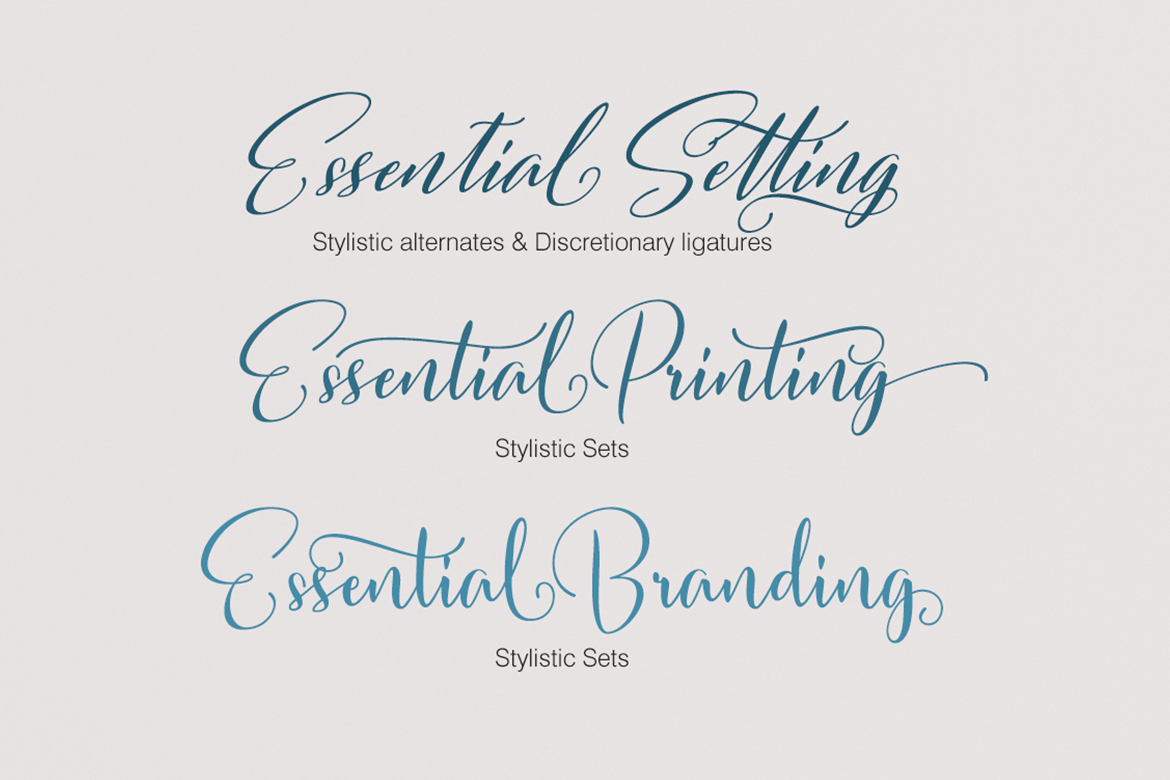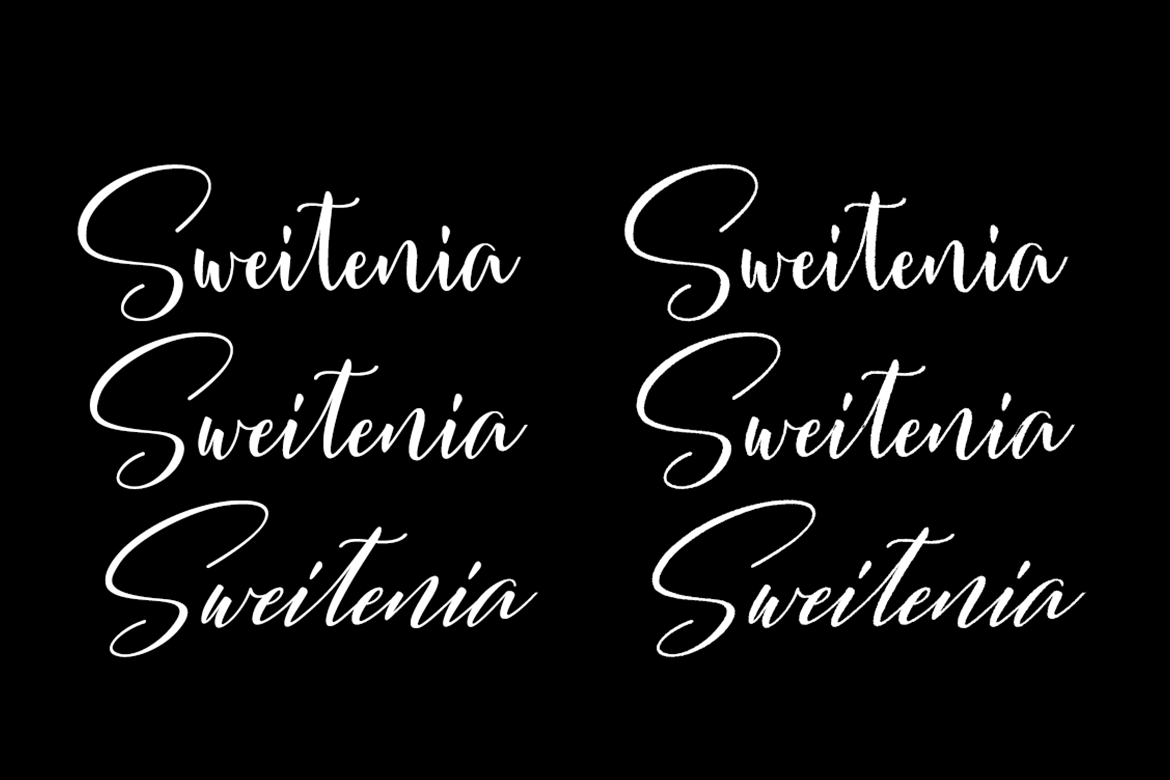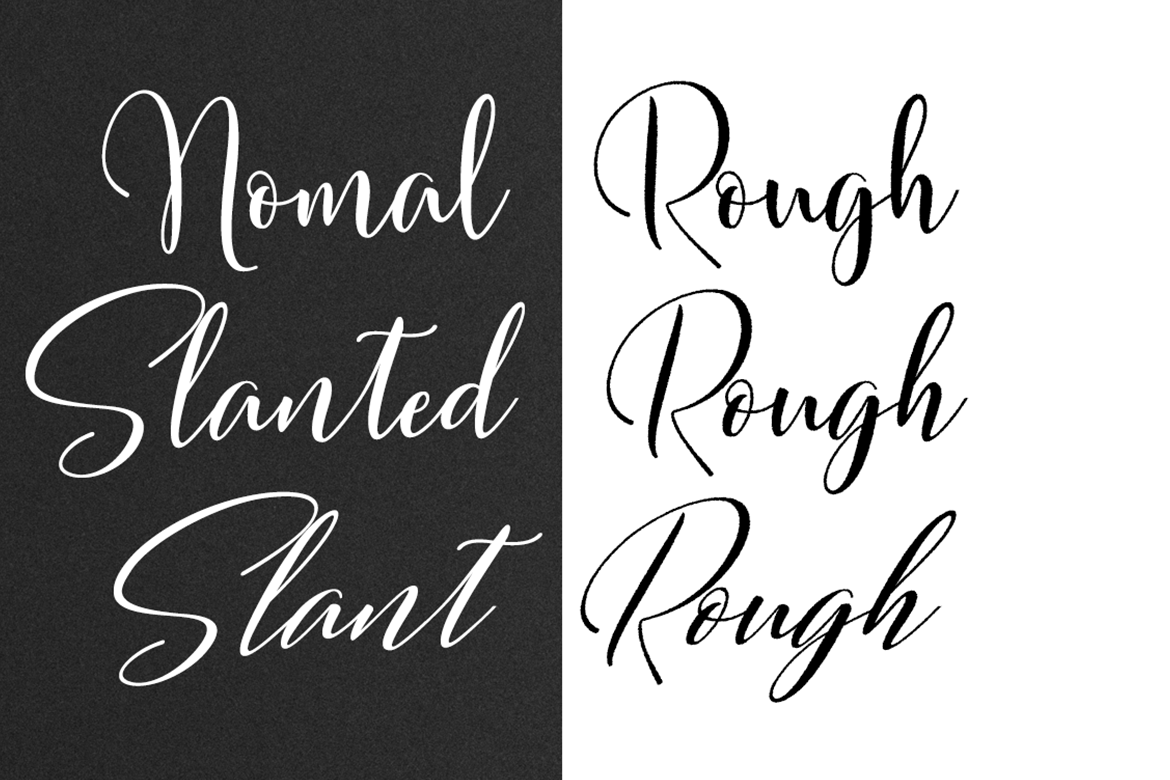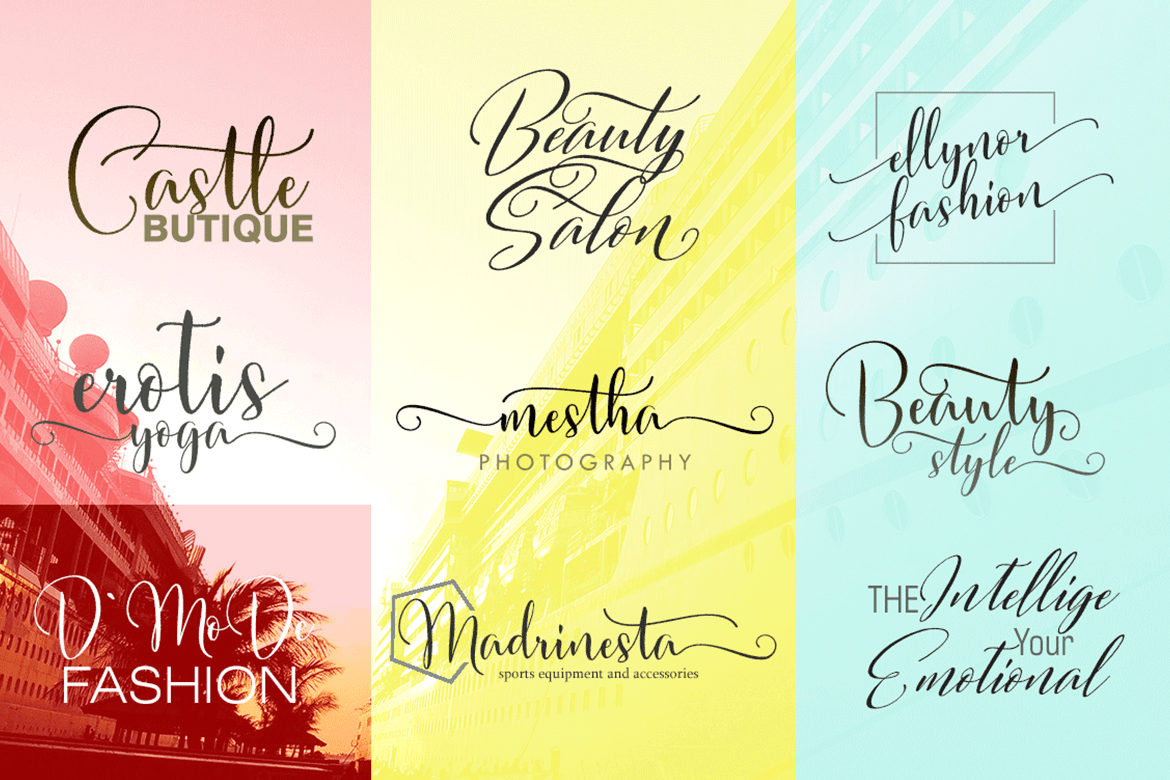
Sweitenia
Sweitenia is a script font that has a distinctive handwriting, it is perfect for making certain labels and business events and you can use them for unique works.
Alternate characters in the Sweitenia font are divided into OpenType features such as Stylistic Alternate, Stylistic Sets, Swash and Ligature. OpenType features can be accessed by using OpenType smart programs such as Adobe Illustrator and Adobe InDesign. can also be accessed through the character map
Can be used for various purposes.such as headings, logos, wedding invitation, t-shirt, letterhead, signage, lable, news, posters, badges etc. To enable the OpenType Stylistic alternates, you need a program that supports OpenType features such as Adobe Illustrator CS, Adobe Indesign & CorelDraw X6-X7.